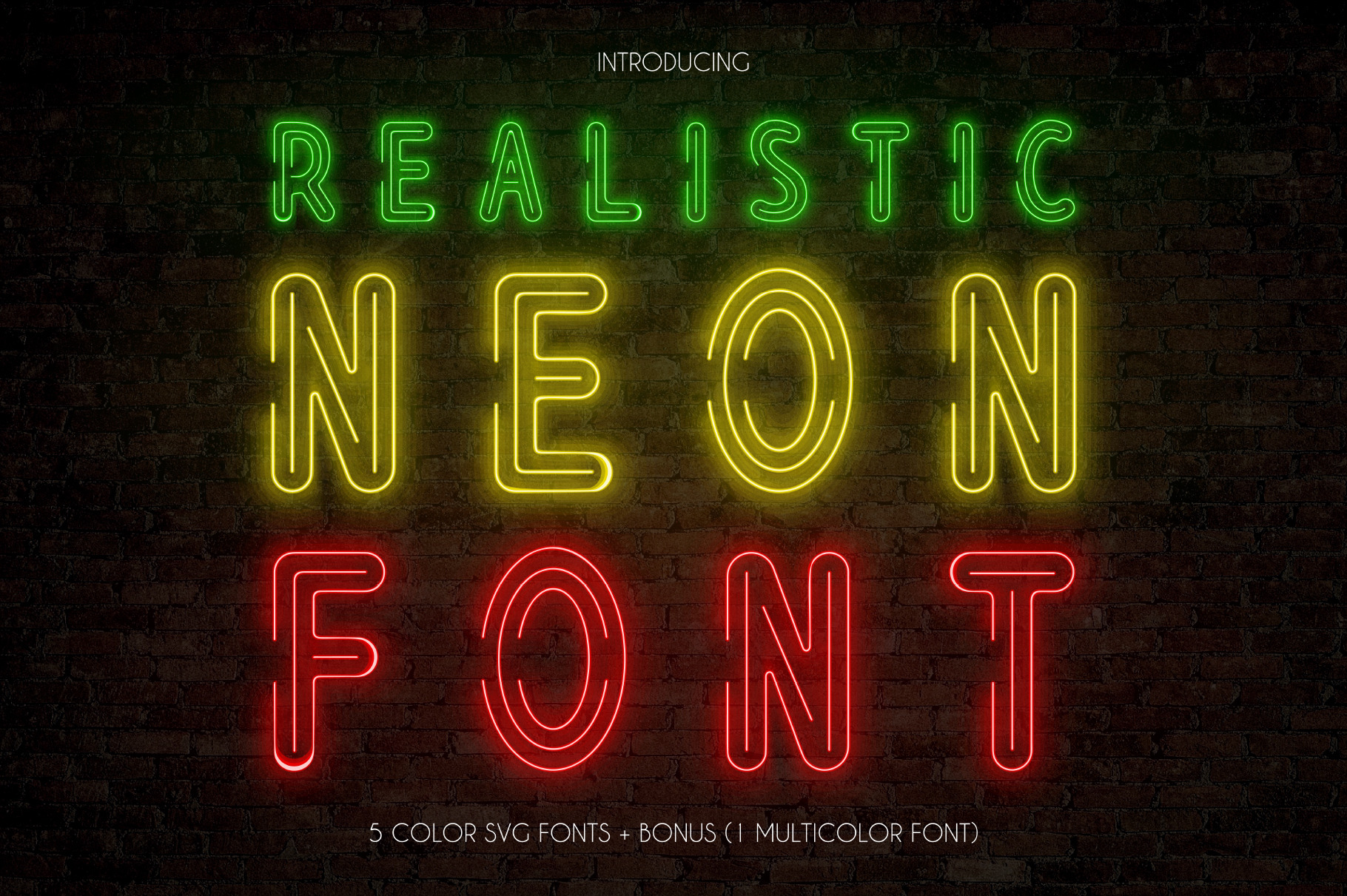
Realistic Neon SVG Font Pack
Hello! Introducing Realistic Neon SVG Font Pack - Color Fonts.
These are OpenType SVG fonts which you can directly type as Neon Glowing letters.
Each glyph has transparent shadows, transparent light effects, outer contour and inner contour for realistic neon effect. These fonts are Indispensable for retro billboards. Of course, you can use these fonts in other different projects.